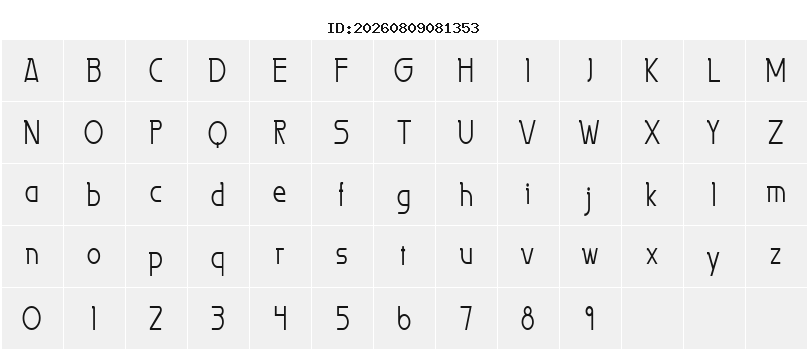
Persia Thin Preview
• Font Name: Persia Thin
• Full Font Name: Persia Thin Normal
About Persia Thin.ttf
Persia Thin.ttf is a modern, elegant sans-serif font designed for ultimate readability and visual harmony. Perfect for branding, headlines, web design, and print materials.